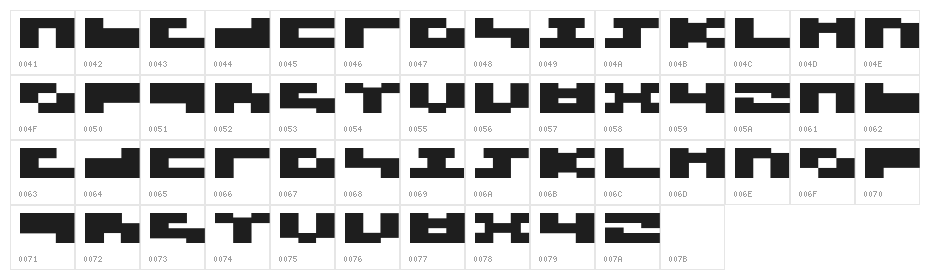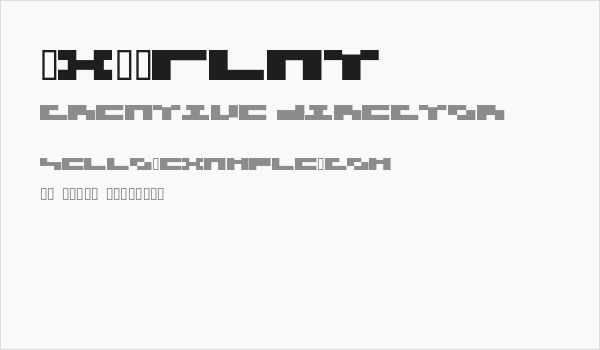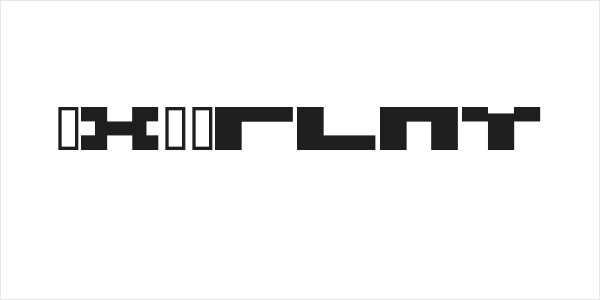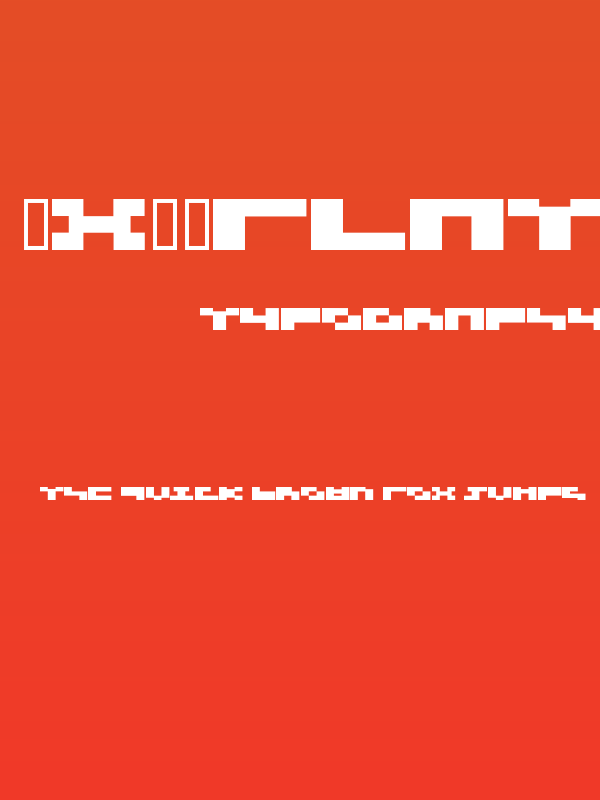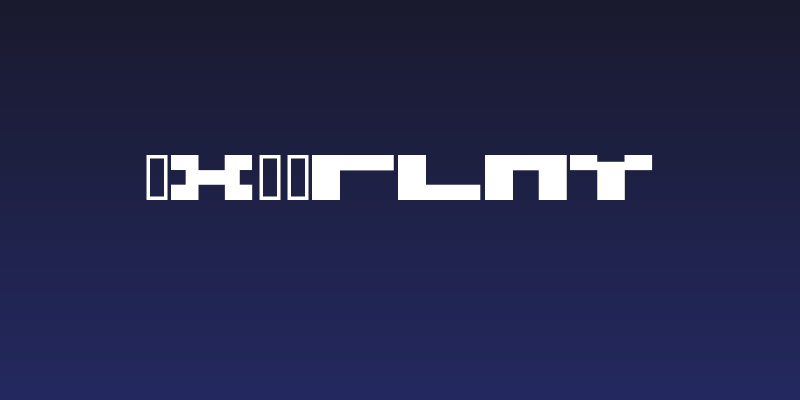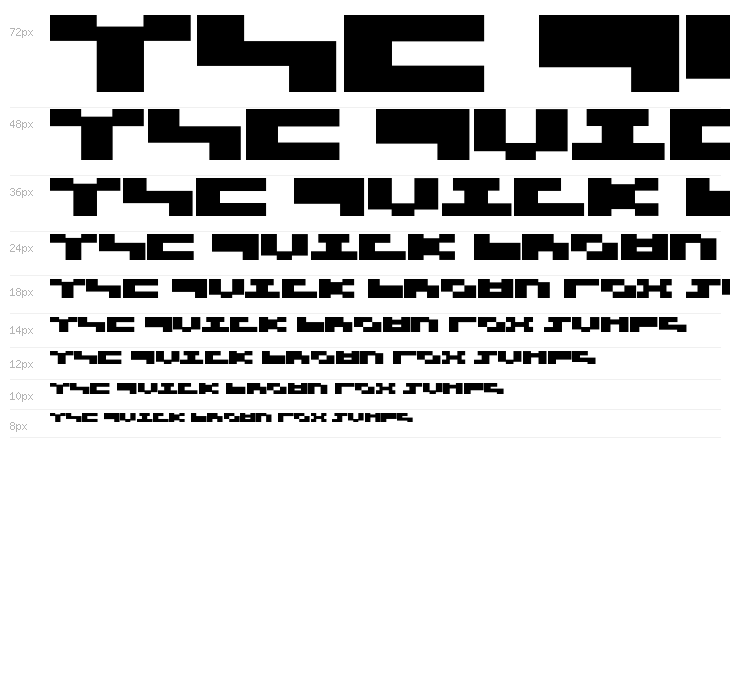
3x3-flat Font
| Gesamtstil | Retro, Digital |
| Anwendungsfall | Logos, Headlines, Posters |
| Vorgeschlagene Projekte | Ideal for retro video game designs, digital art projects, tech-themed posters, and any creative work that seeks to capture a vintage digital feel. |